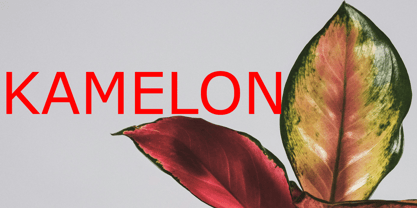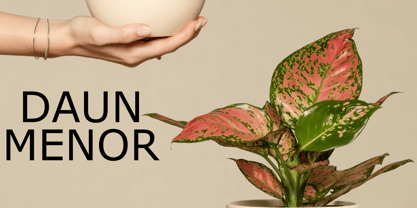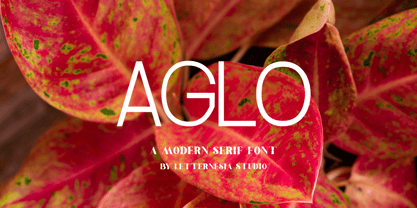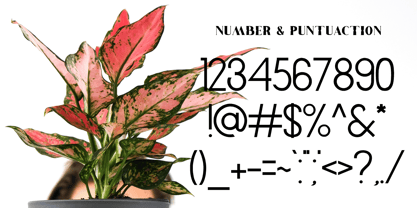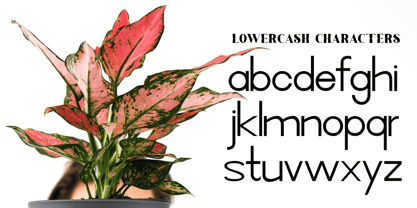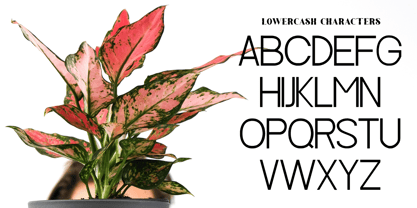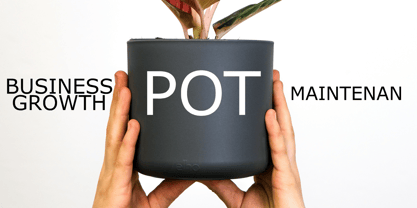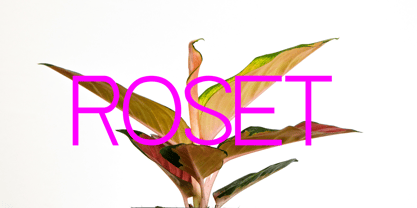
Die Schriftfamilie Aglo wurde von Ta Siyo entworfen und von Letternesia studio veröffentlicht. Aglo enthält 2 Stile und Familienpaketoptionen. Mehr über diese Familie
AGLO is a bold and expressive display typeface designed to stand out with confidence and character. Featuring strong letterforms and a modern attitude, AGLO delivers a powerful visual impact that grabs attention instantly. Perfect for logos, headlines, posters, branding, packaging, and creative projects, AGLO brings a clean yet striking style that works well in both digital and print designs. Its unique shapes add personality while remaining highly readable. AGLO is the right choice when you want your design to look bold, modern, and unforgettable.